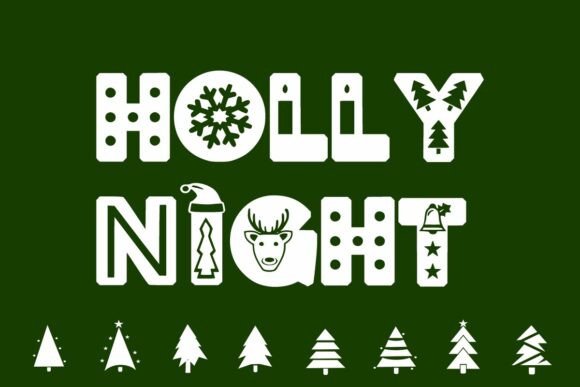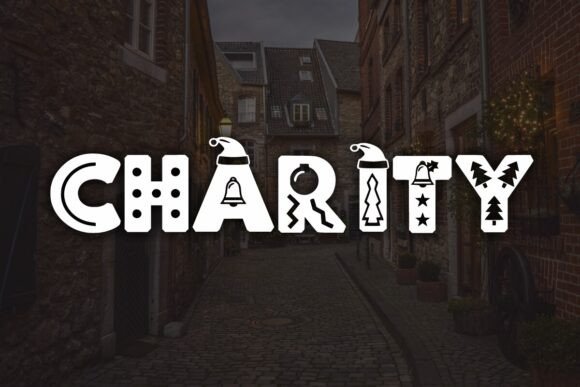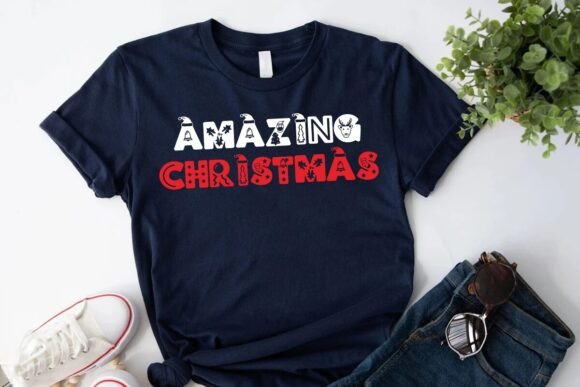
Introduction to Christmas in Holiday Font
As a designer, there’s nothing quite like the thrill of brainstorming a new creative project – the blank canvas, the endless possibilities, and the chance to bring your unique vision to life. For many of us, the holiday season is a time of inspiration, and what better way to get into the festive spirit than with a font that embodies the magic of Christmas?
Enter Christmas in Holiday Font, a decorative font that combines Christmas icons and symbols in a fun and festive display. With its high-quality design and transparent background, this font is the perfect design resource for adding a touch of holiday cheer to your projects. Whether you’re creating product packaging, invitations, or quotes, Christmas in Holiday Font is sure to bring a smile to your face and make your design stand out.
Key Features of Christmas in Holiday Font
- High-quality design resource for creative projects, perfect for adding a festive touch to your designs.
- Comes with a transparent background, making it easy to integrate with any design element.
- Designed with attention to detail, featuring intricate and elegant lettering, perfect for holiday-themed projects.
- Includes 8 different font styles to give your design a unique and festive look.
Honest Review: Christmas in Holiday Font
As a designer, I’m always on the lookout for new design resources to elevate my creative projects. Recently, I stumbled upon the Christmas in Holiday Font, and I’m excited to share my honest review with you.
The font also comes with a transparent background, which is a great feature for designers who want to layer their elements seamlessly. Plus, the high quality of the font ensures that it looks great on any device or screen.
Limitations: ⚠️ While the font is highly versatile, it may not be suitable for all types of projects. For example, it’s not ideal for body text, as it can be a bit too decorative for large blocks of text. Additionally, some users may find the font a bit too festive, so it’s worth considering the tone of your project before using it.
Overall, I’m impressed with the Christmas in Holiday Font. It’s a great addition to any designer’s toolkit, and it’s sure to help bring some holiday cheer to your creative projects.
- Highly versatile
- Modern and festive design
- High quality
How to Use Christmas in Holiday Font
Christmas in Holiday Font is a high-quality design resource that offers a unique and festive touch to your creative projects. This font is perfect for designers looking to add a touch of holiday cheer to their designs.
Tips for Getting the Most Out of Christmas in Holiday Font
Use the font with a transparent background to create a clean and modern look. Experiment with different font sizes and colors to add depth and visual interest to your designs.
Christmas in Holiday Font is perfect for a variety of creative projects, including holiday cards, social media graphics, posters, invitations, and more. It’s also great for use in business projects, such as holiday marketing materials and company reports.